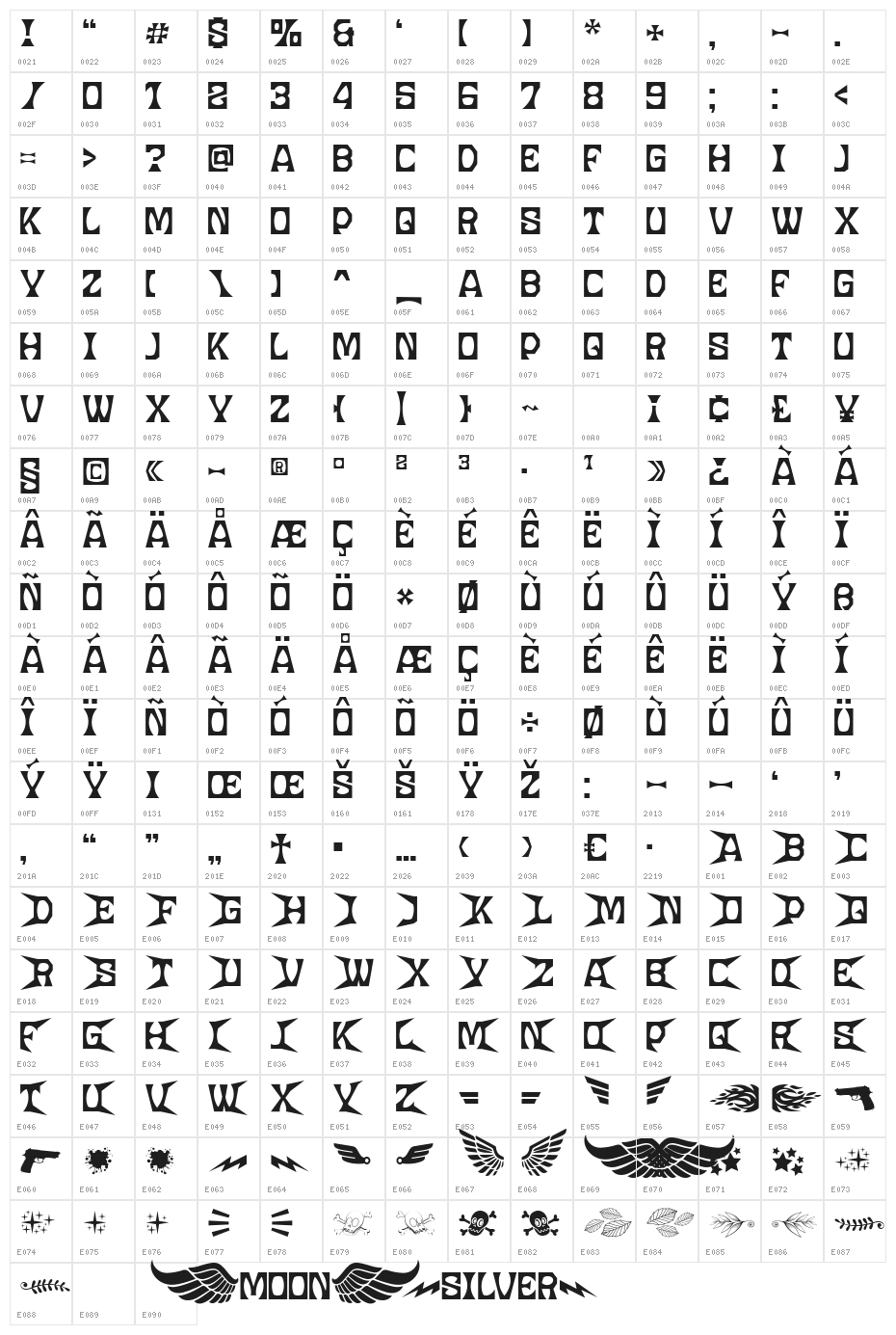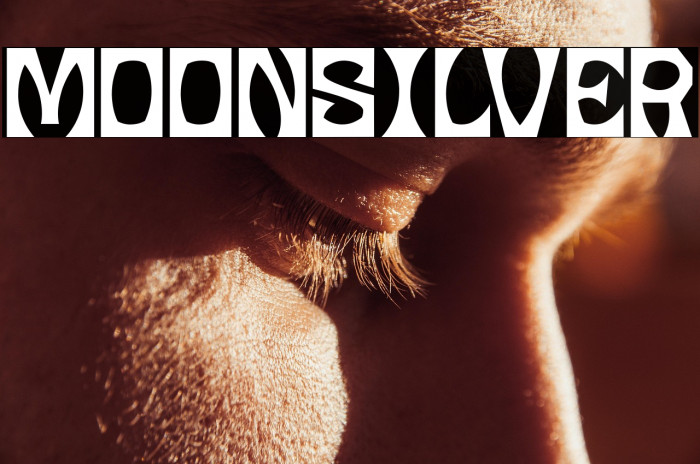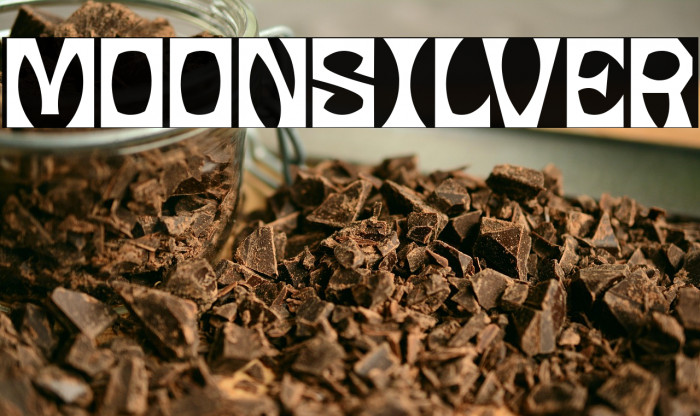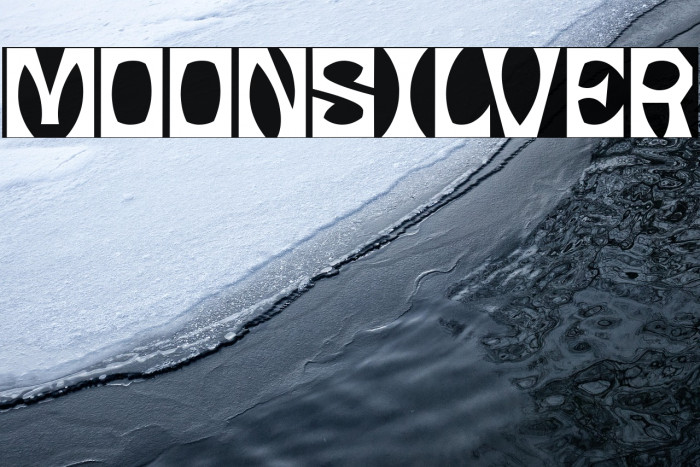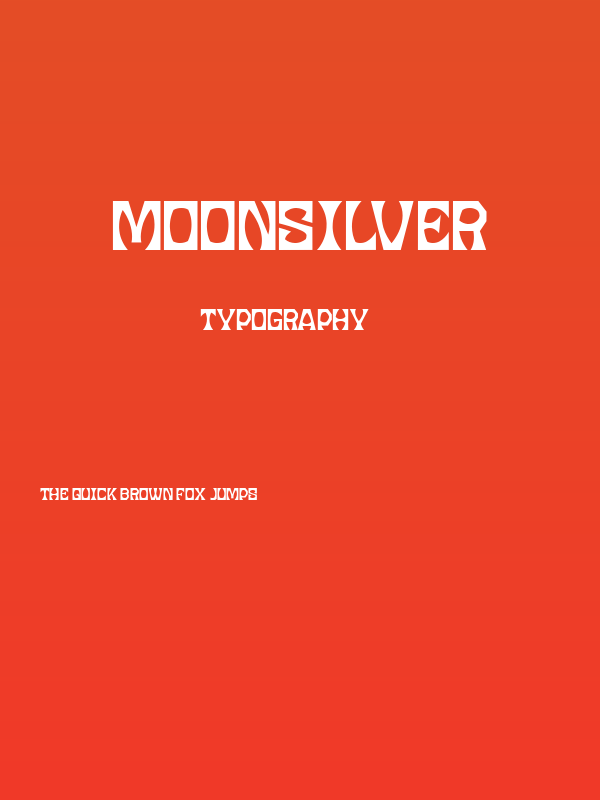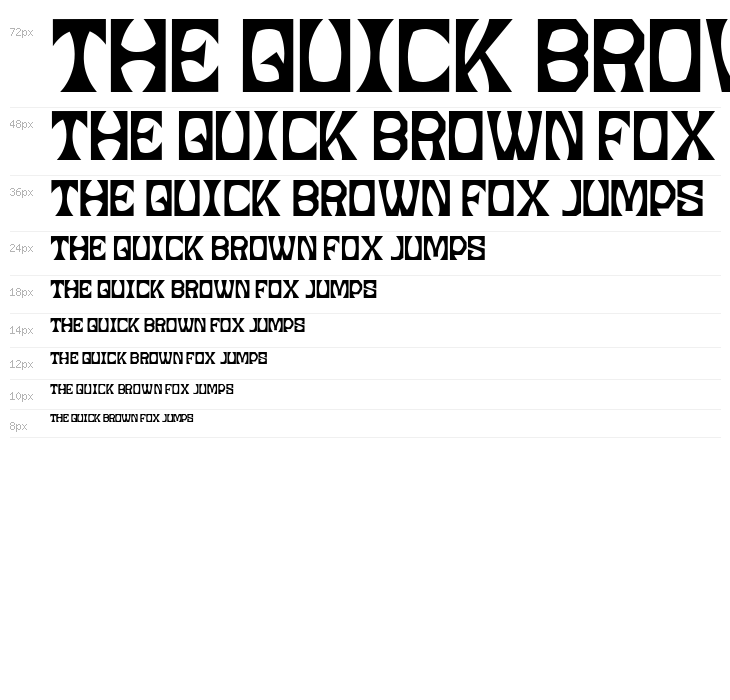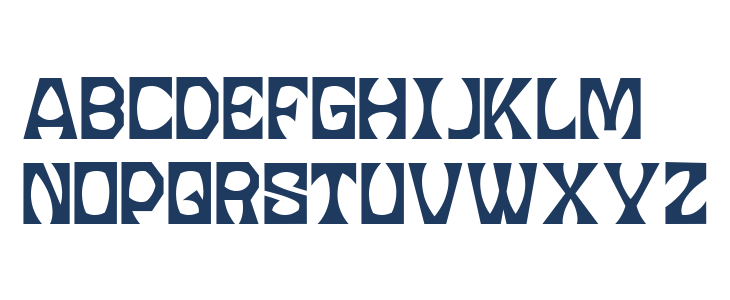
MOONSILVER Font
MOONSILVER Description
This font features a bold and striking design with a unique geometric style. Each character is crafted with sharp angles and contrasting thick and thin lines, creating a dynamic and eye-catching appearance. The uppercase letters are particularly distinctive, with a modern and futuristic flair. The numbers and special characters maintain the same boldness and geometric precision, ensuring consistency throughout the typeface. This font is ideal for projects that require a strong visual impact and a contemporary aesthetic.
| Proposed Projects | Ideal for branding, posters, album covers, and any design needing a modern, impactful look. |